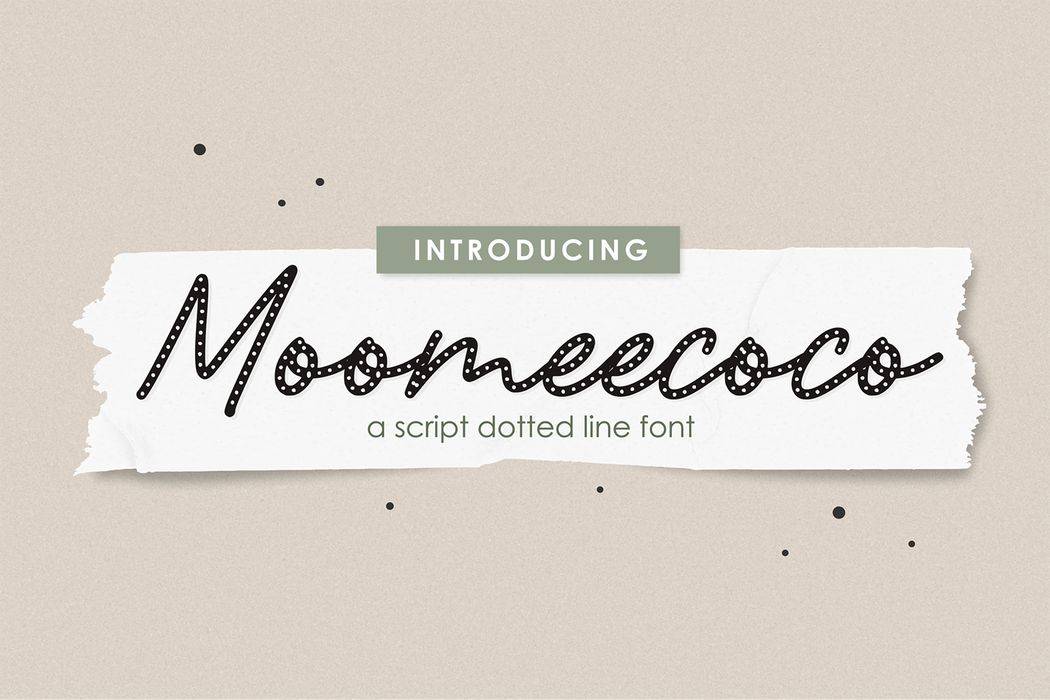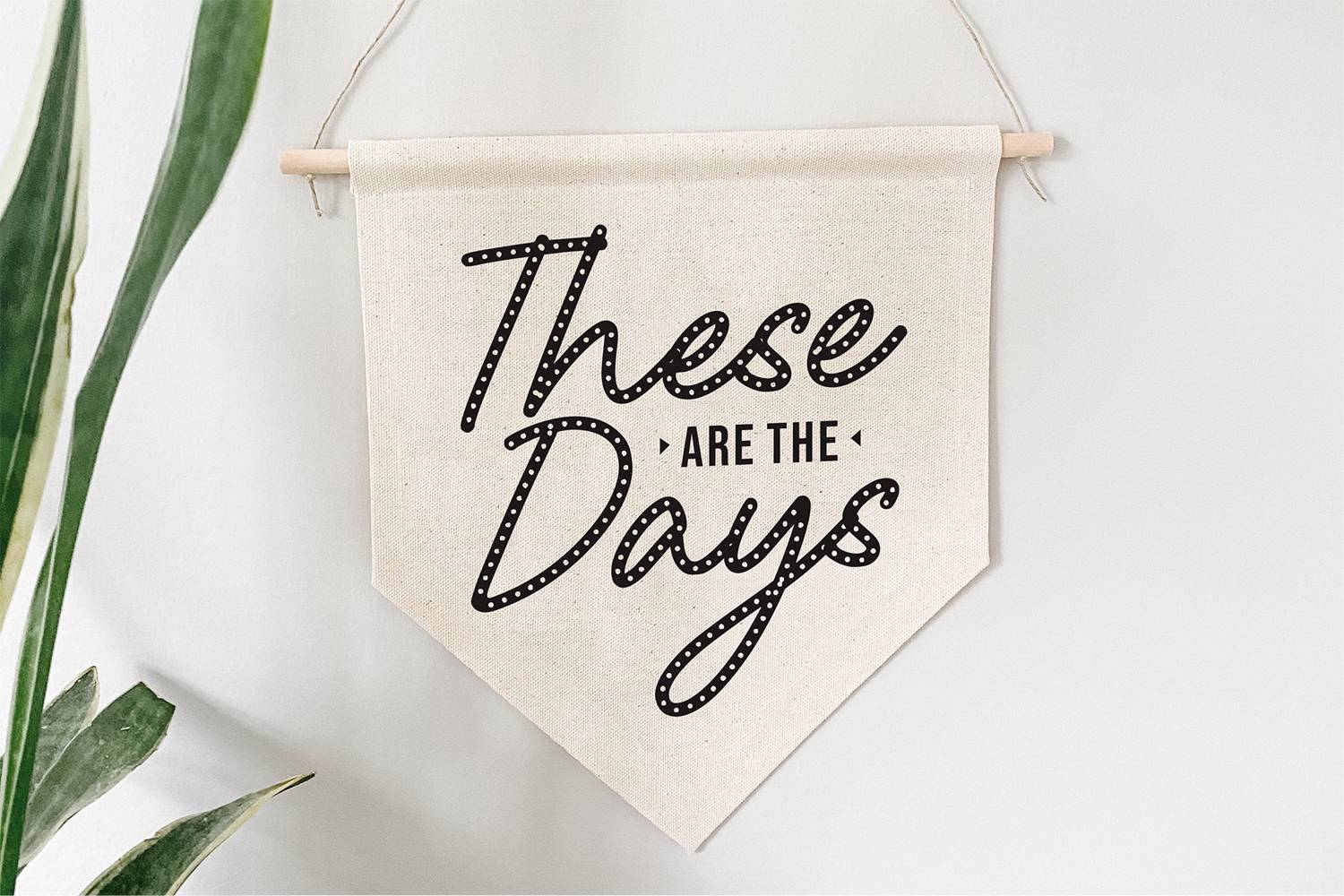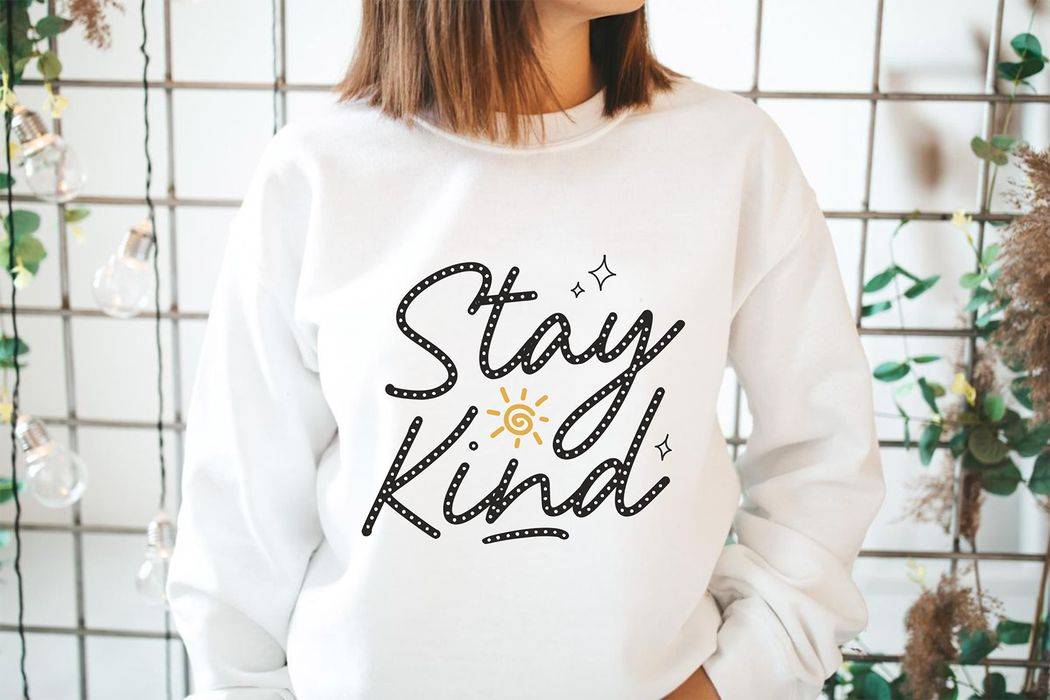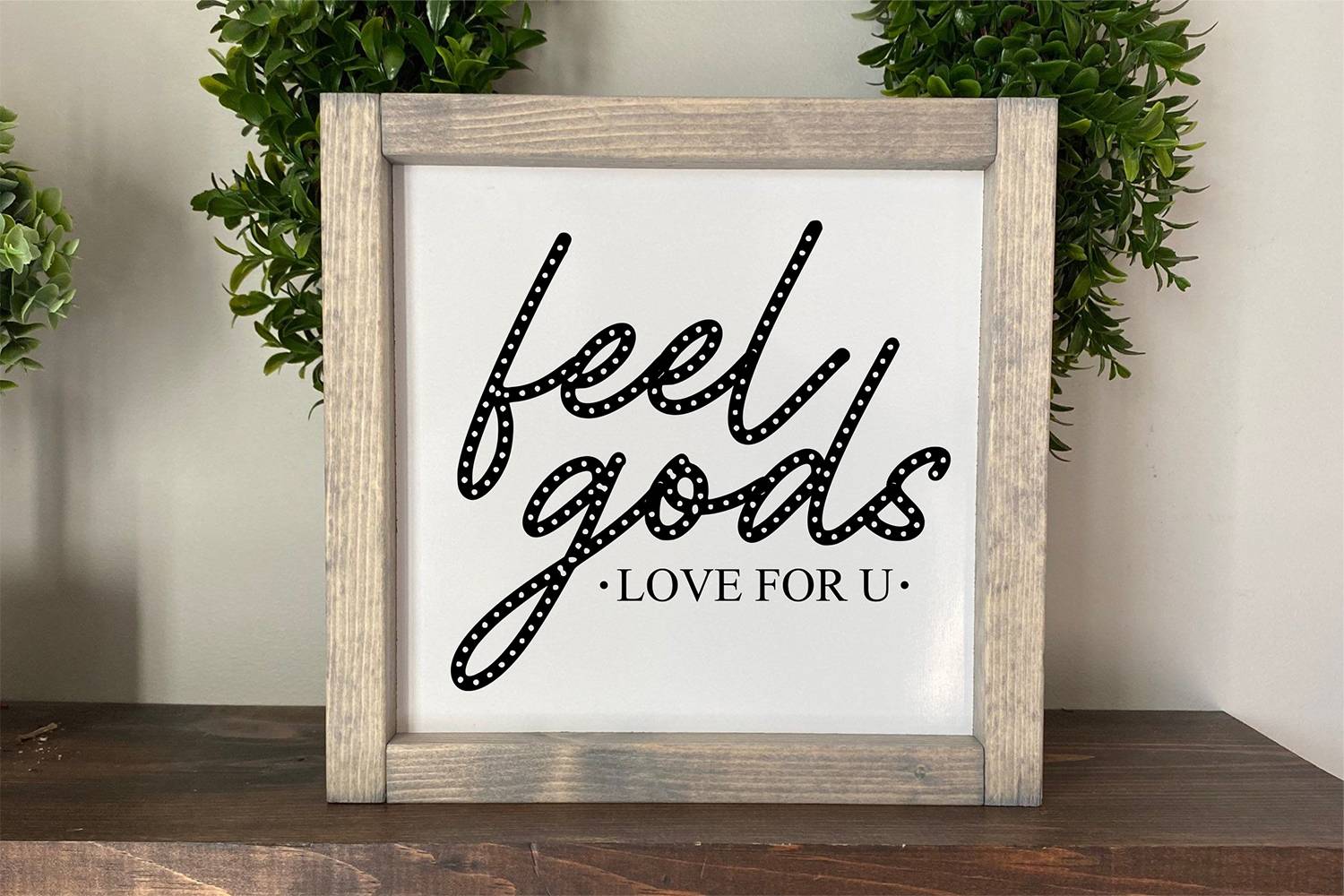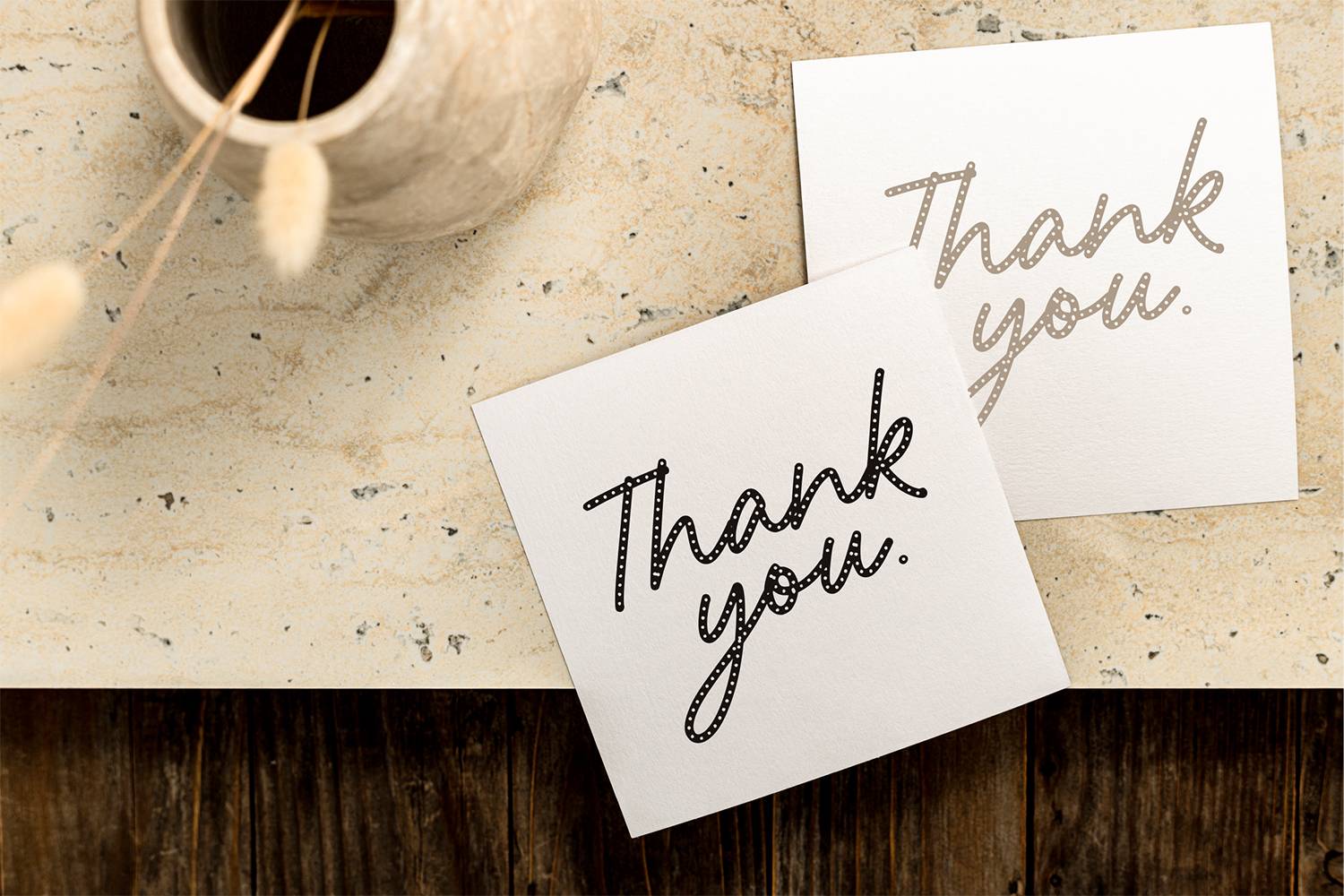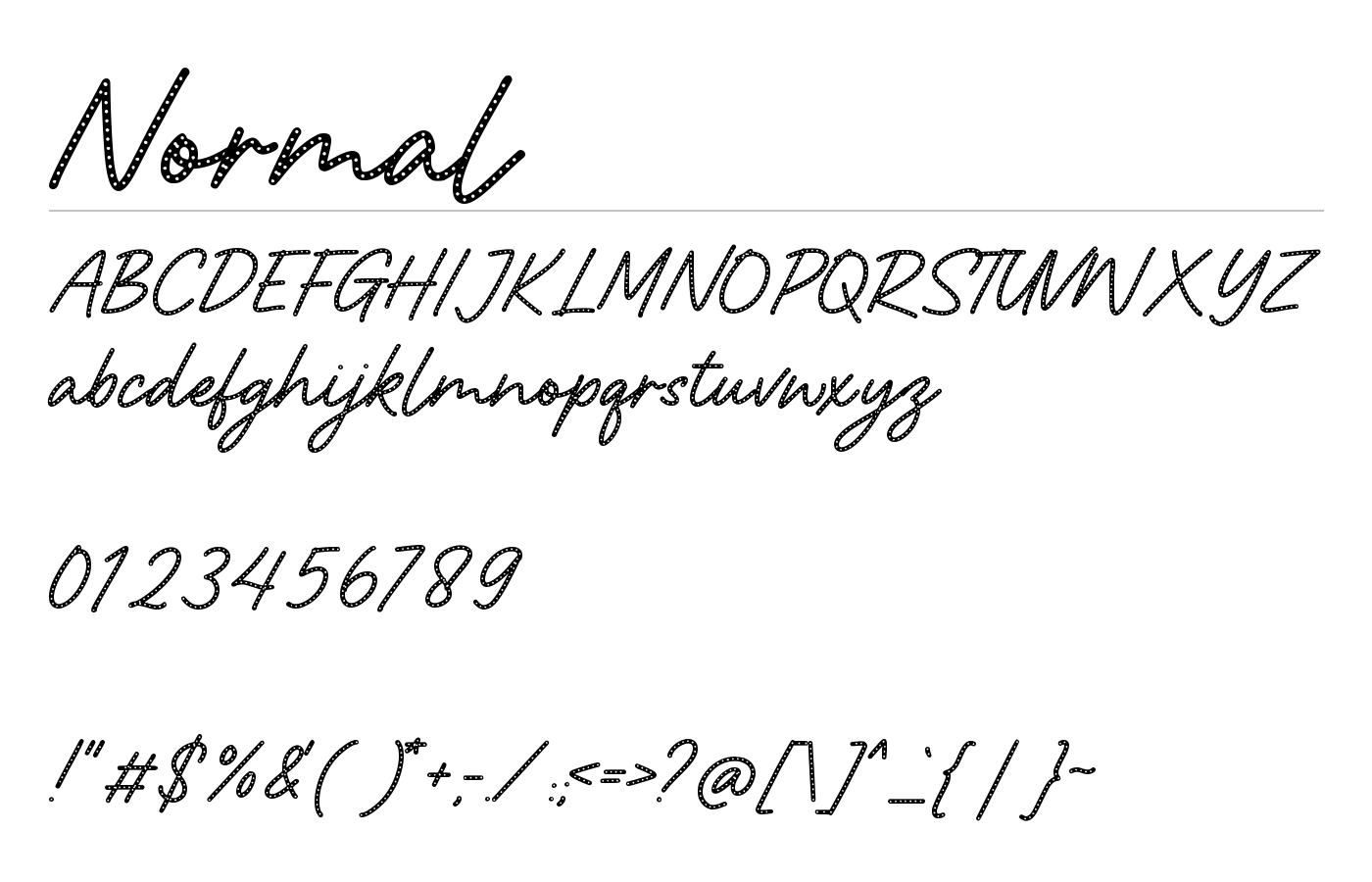
Moomeecoco is a playful, handwritten script font with a light, airy feel and a distinctive dotted texture that adds a whimsical charm. Its casual, flowing letterforms are ideal for creative projects, invitations, and branding that aim to convey friendliness or a handcrafted touch. This font works well in designs seeking a personal, approachable style with a unique decorative flair.
Moomeecoco Font
About Moomeecoco Font